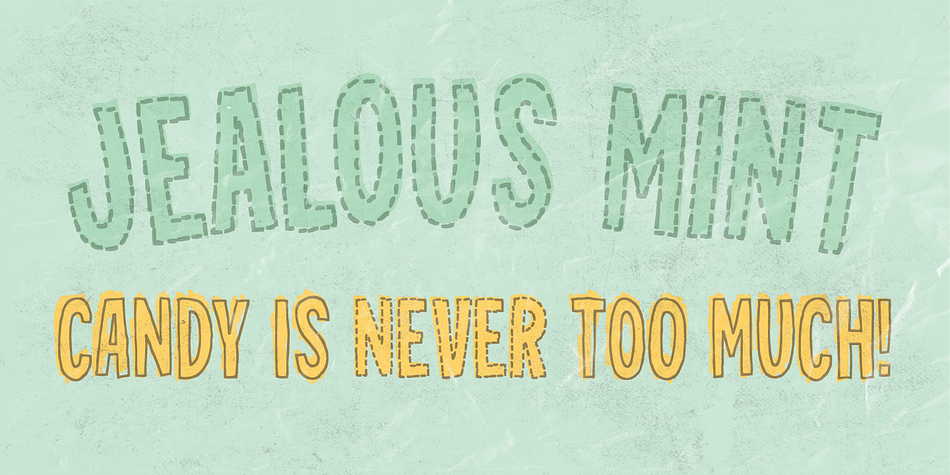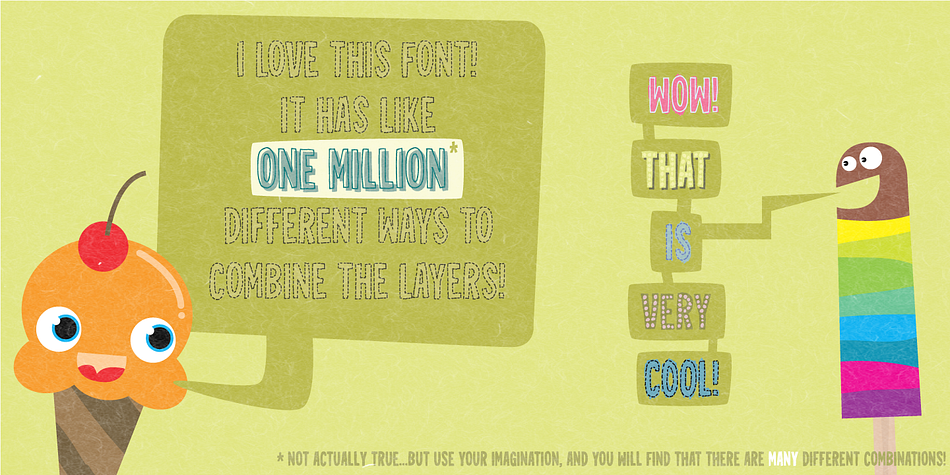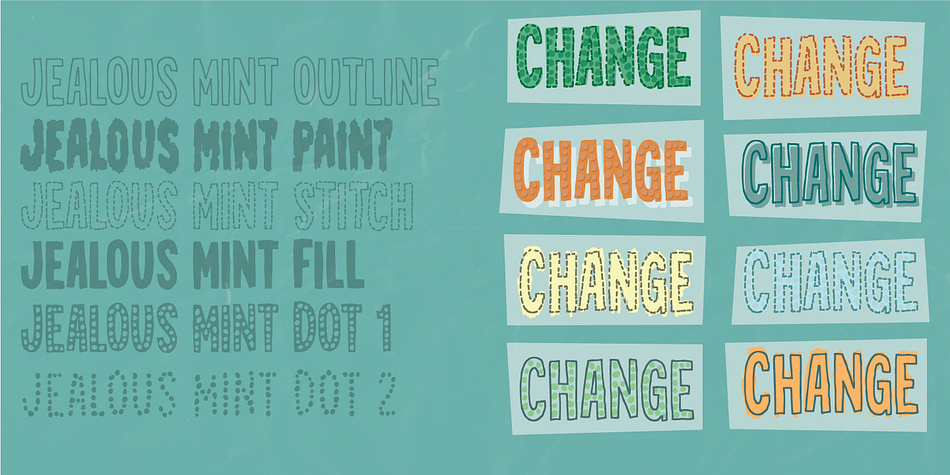
Jealous Mint is a grunge, typewriter and display sans font family. This typeface has six styles and was published by Pizzadude.dk.
Jealous Mint is a 100% handmade font. It comes in 6 different versions: Outline, Paint, Stitch, Fill, Dot 1 and 2. All of these versions work very well together, and makes it possible to give your text a lot of different expressions.
The font is ALL-CAPS, and comes with different letters in UPPER- and lowercase, along with ligatures to substitute double lettering!